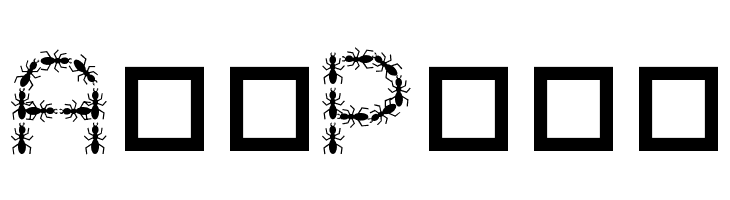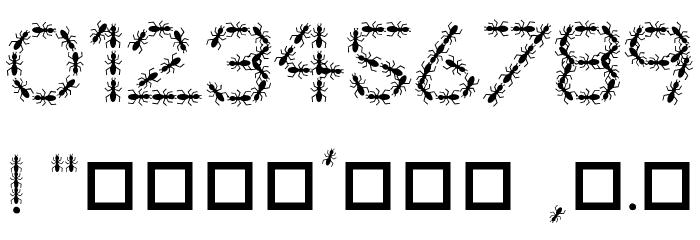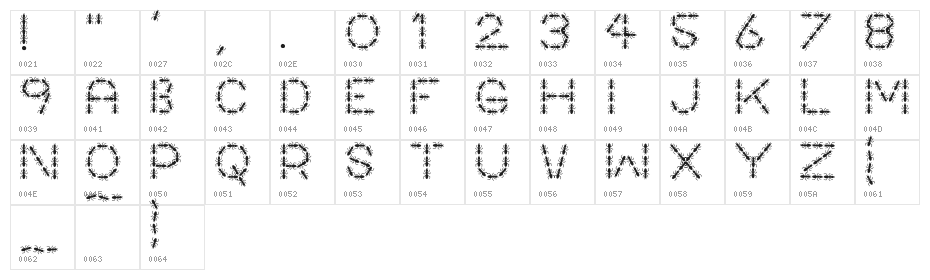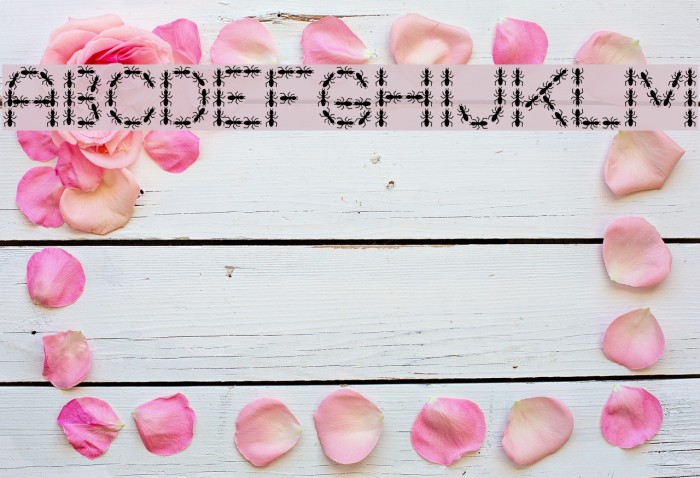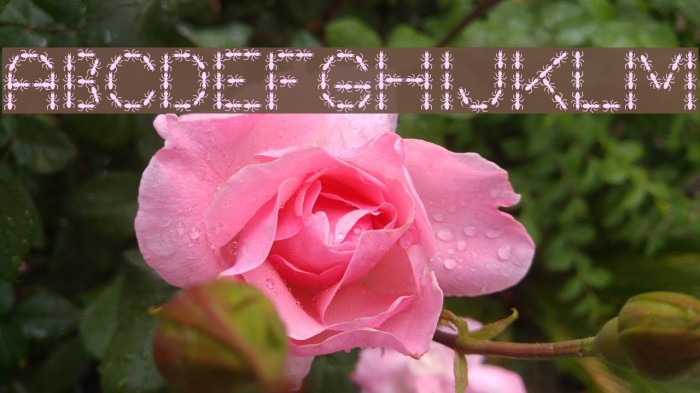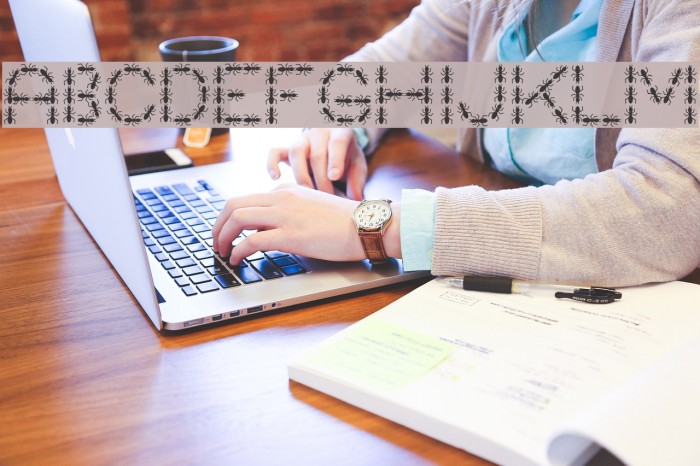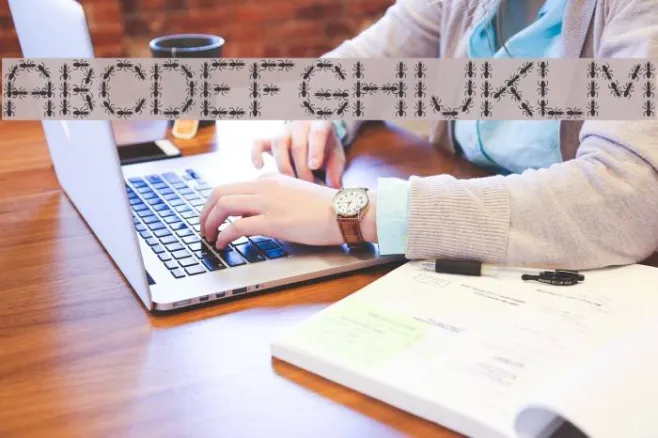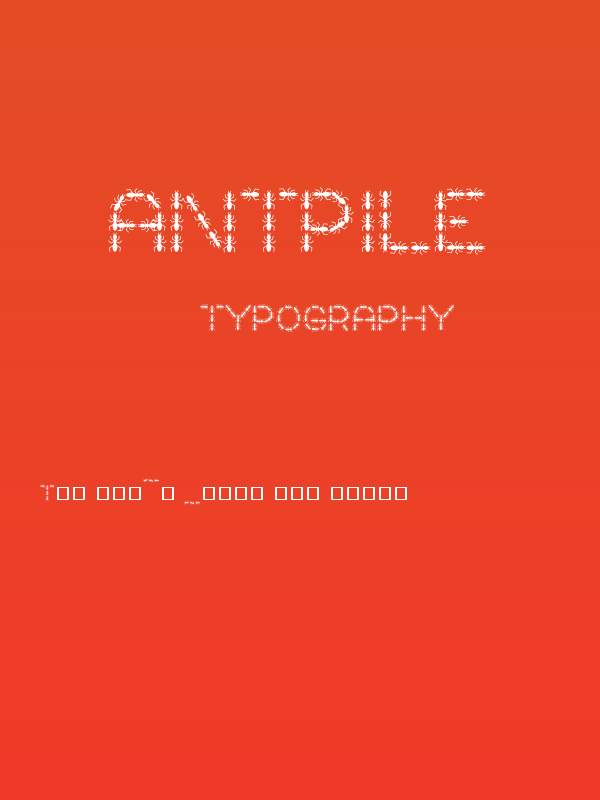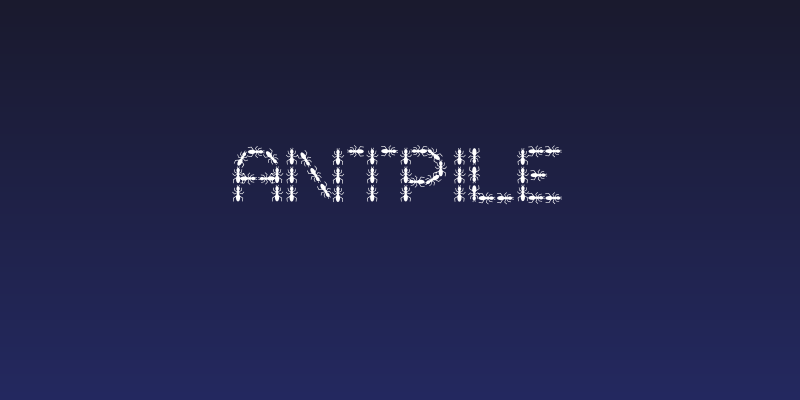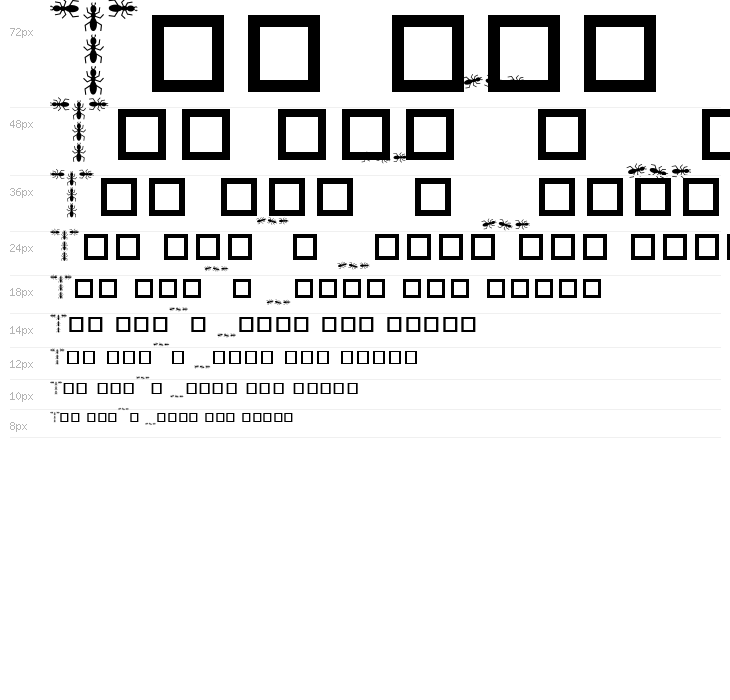
AntPile Font
AntPile Description
This unique and playful font is composed of tiny ant illustrations forming each character, creating a whimsical and eye-catching design. The letters and numbers are crafted with intricate detail, where each ant is strategically placed to outline the shape of the characters. This font is highly decorative, making it ideal for projects that require a fun and creative touch. The overall appearance is both organic and structured, with a consistent pattern of ants that maintain legibility while adding a distinctive flair. The font's design is perfect for thematic projects, especially those related to nature, insects, or playful branding. Its decorative nature makes it less suitable for body text but excellent for headlines or logos where a unique style is desired.
| Proposed Projects | Ideal for nature-themed designs, children's books, playful branding, and creative logos. |